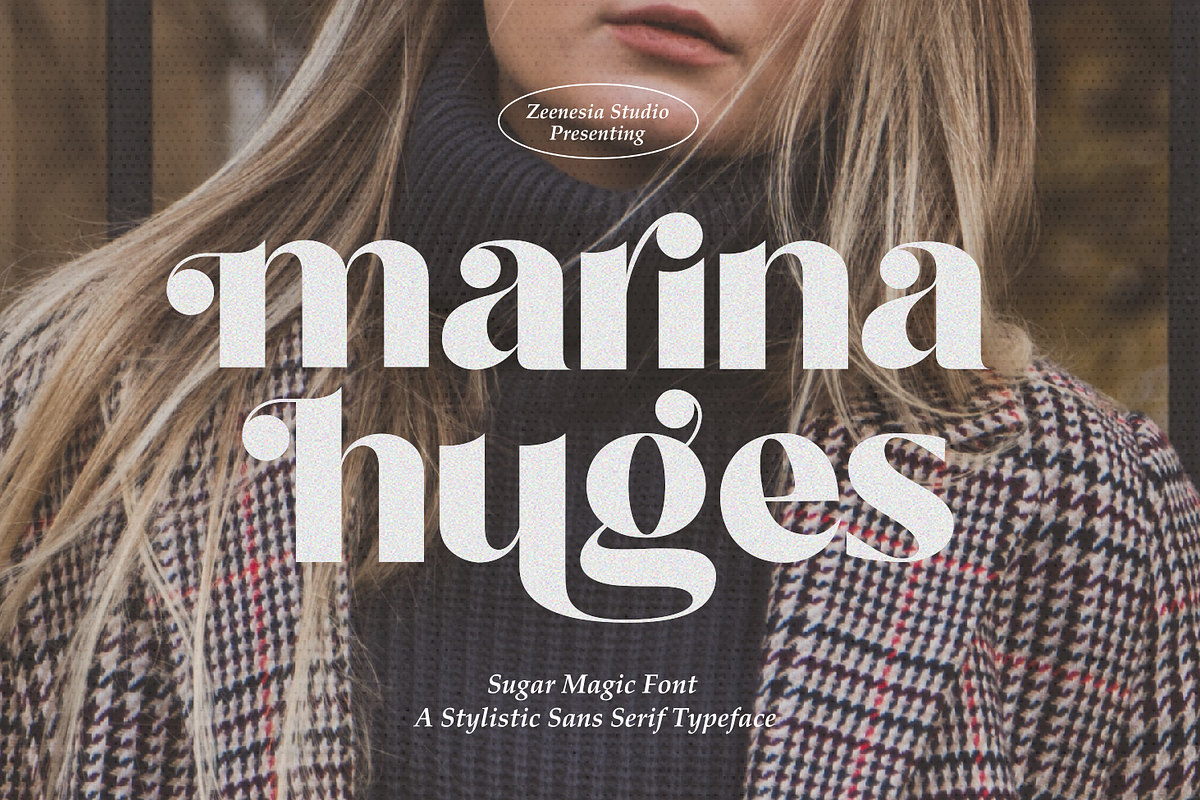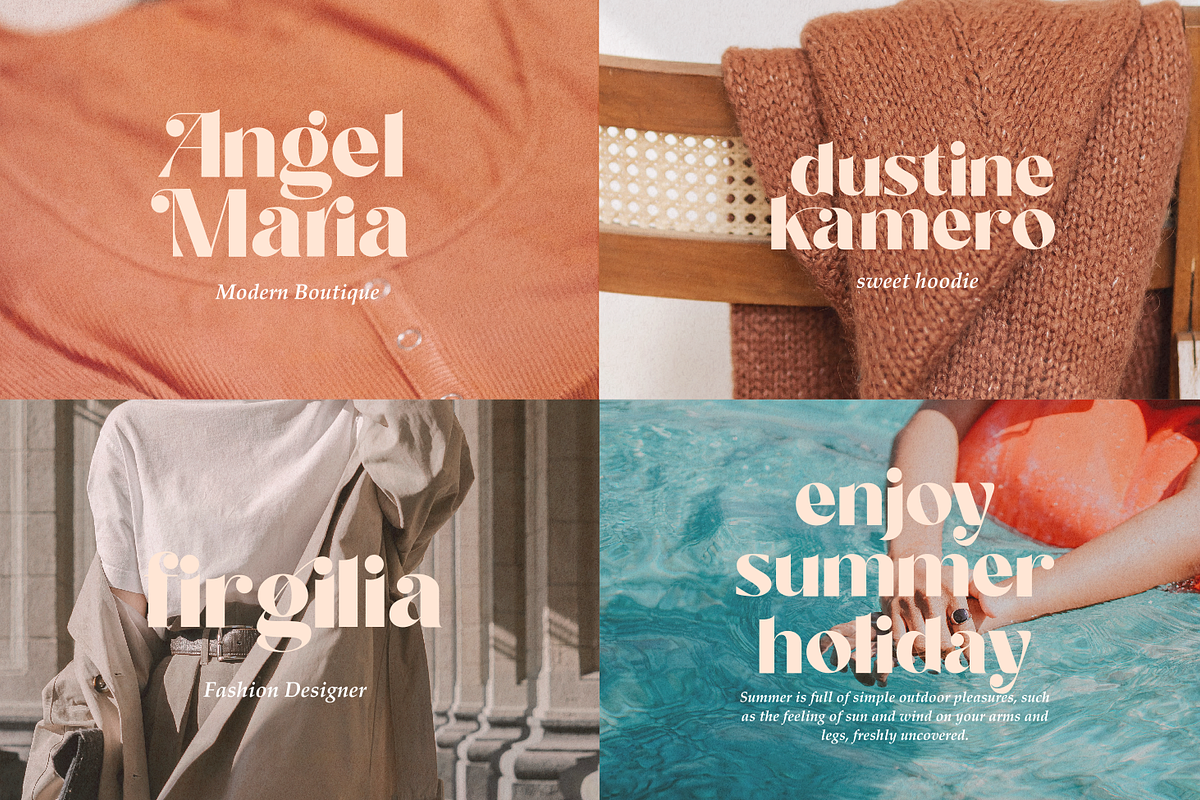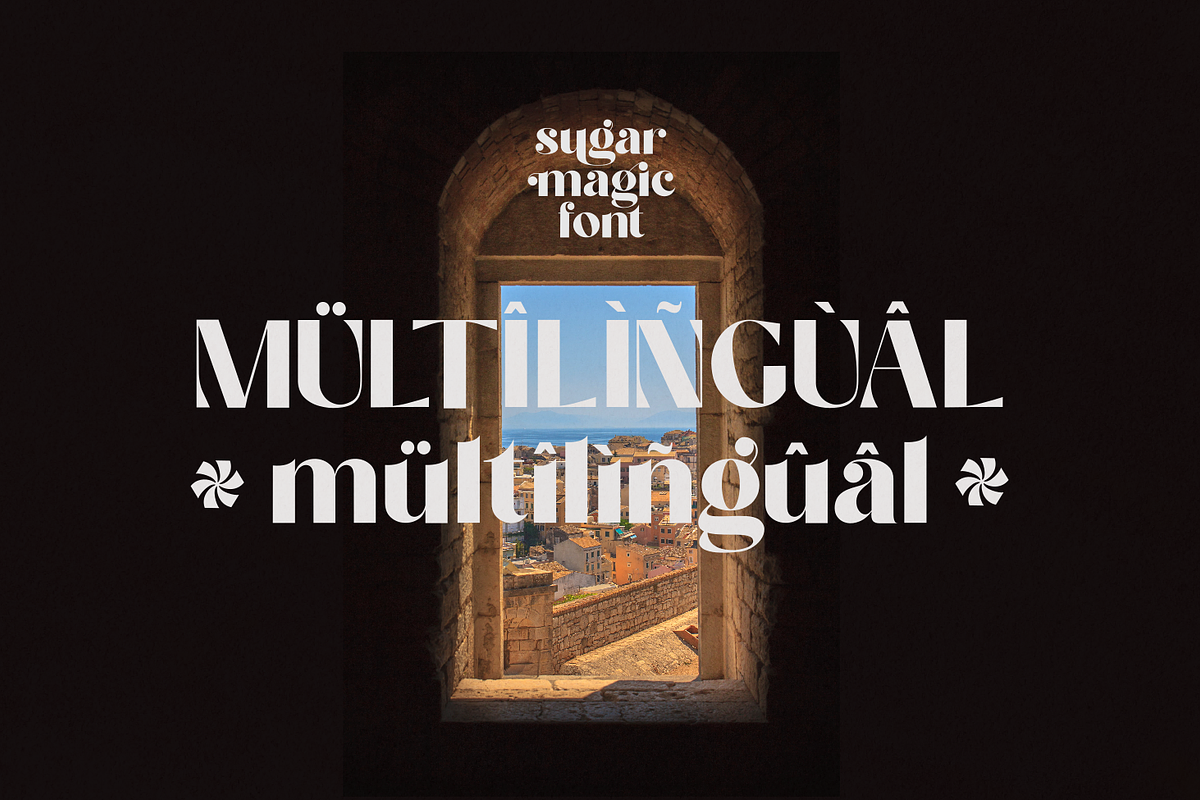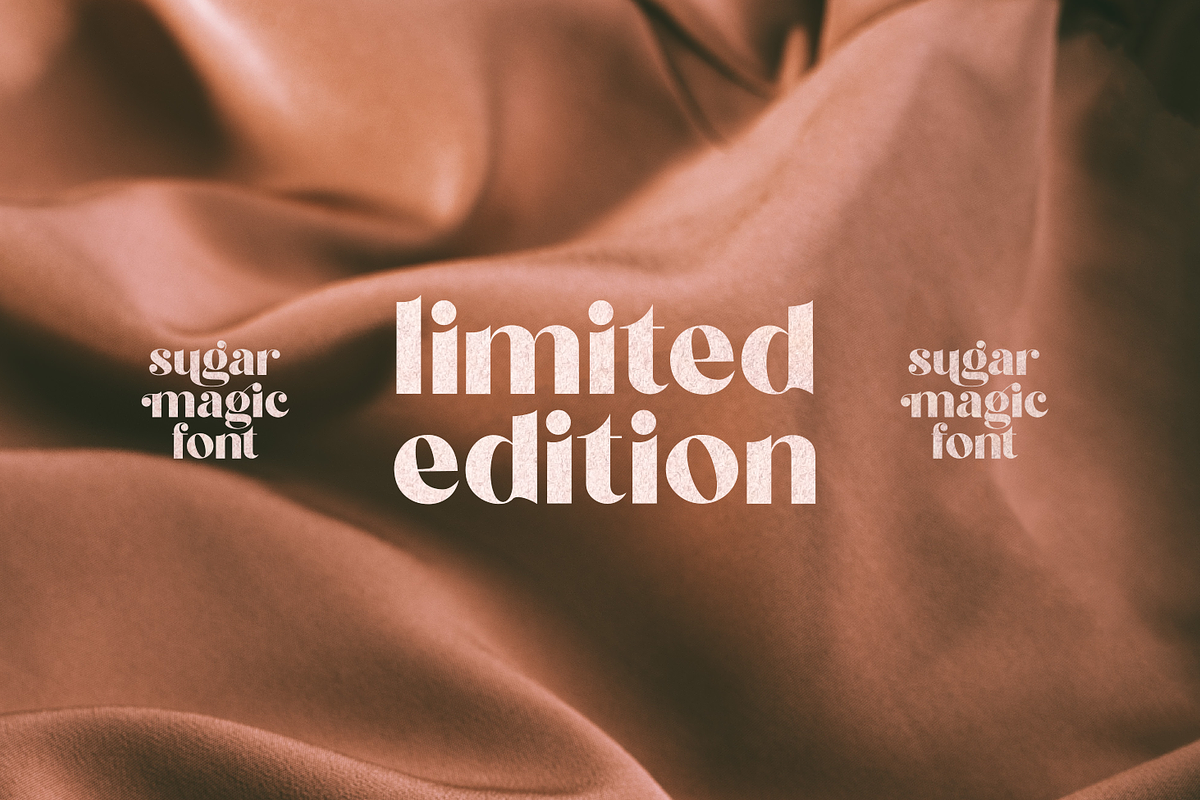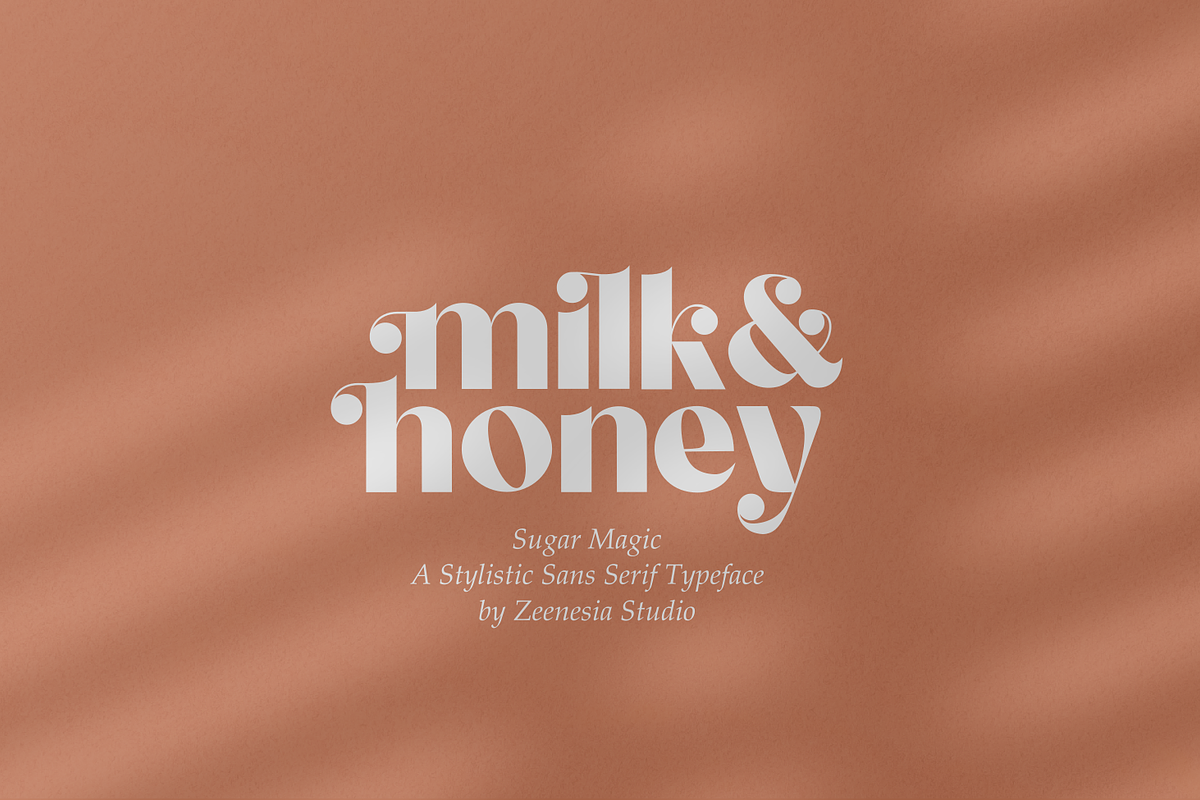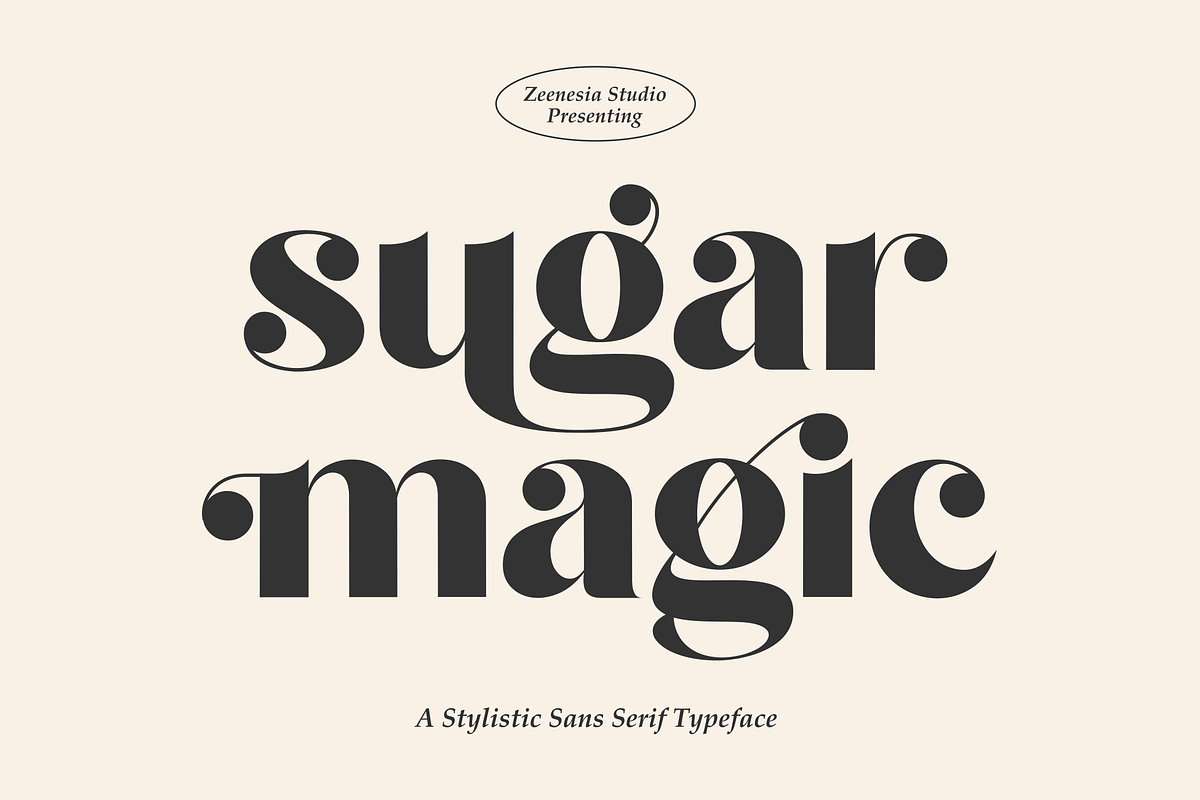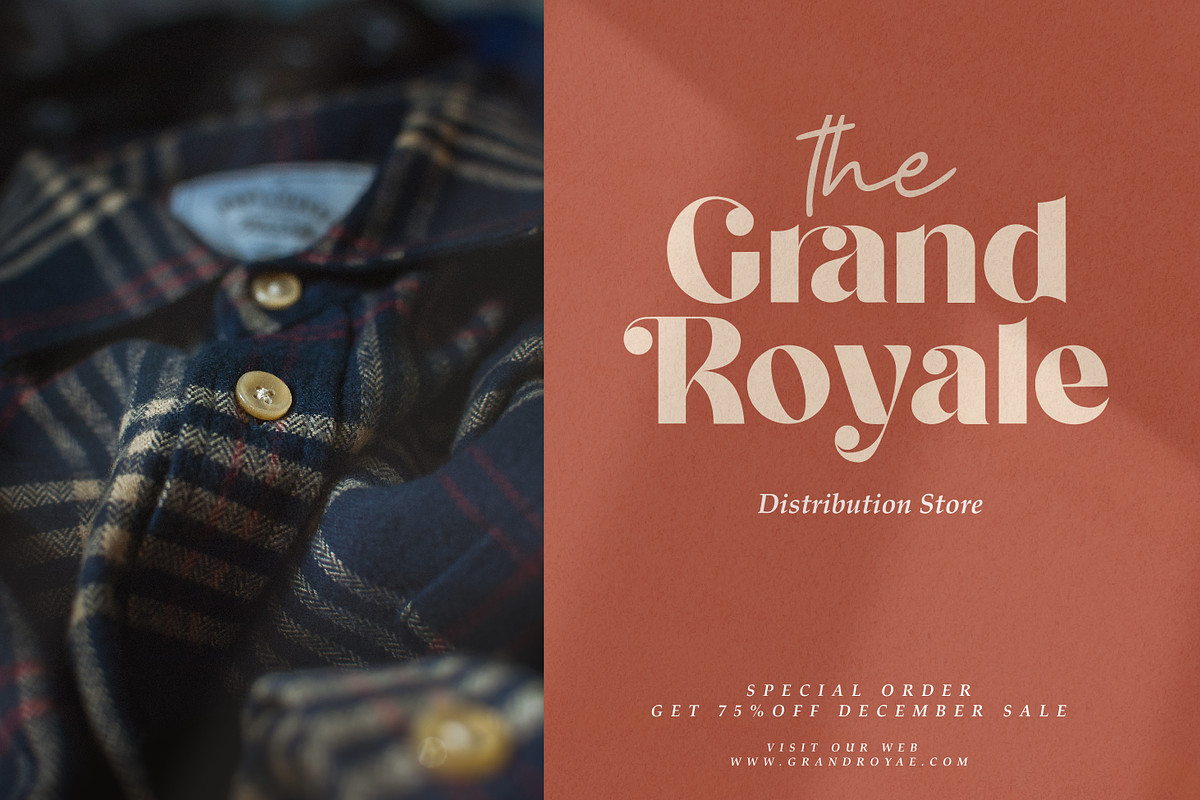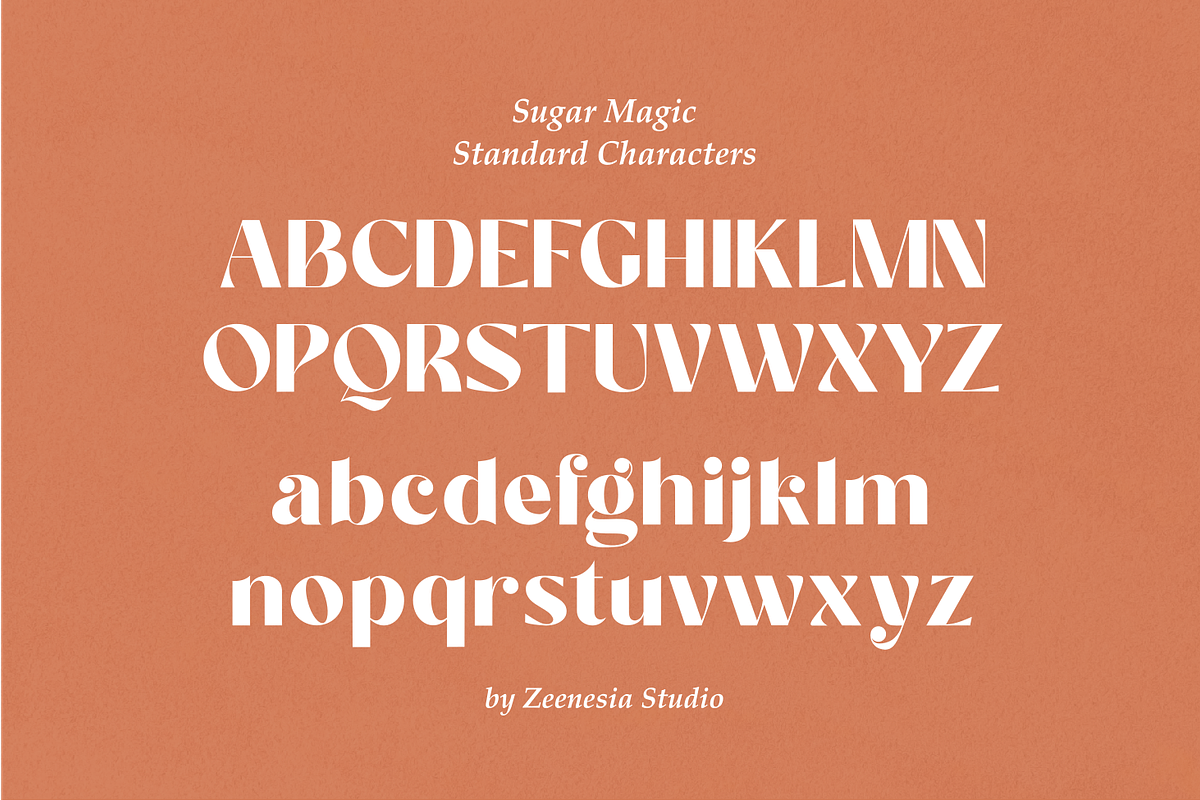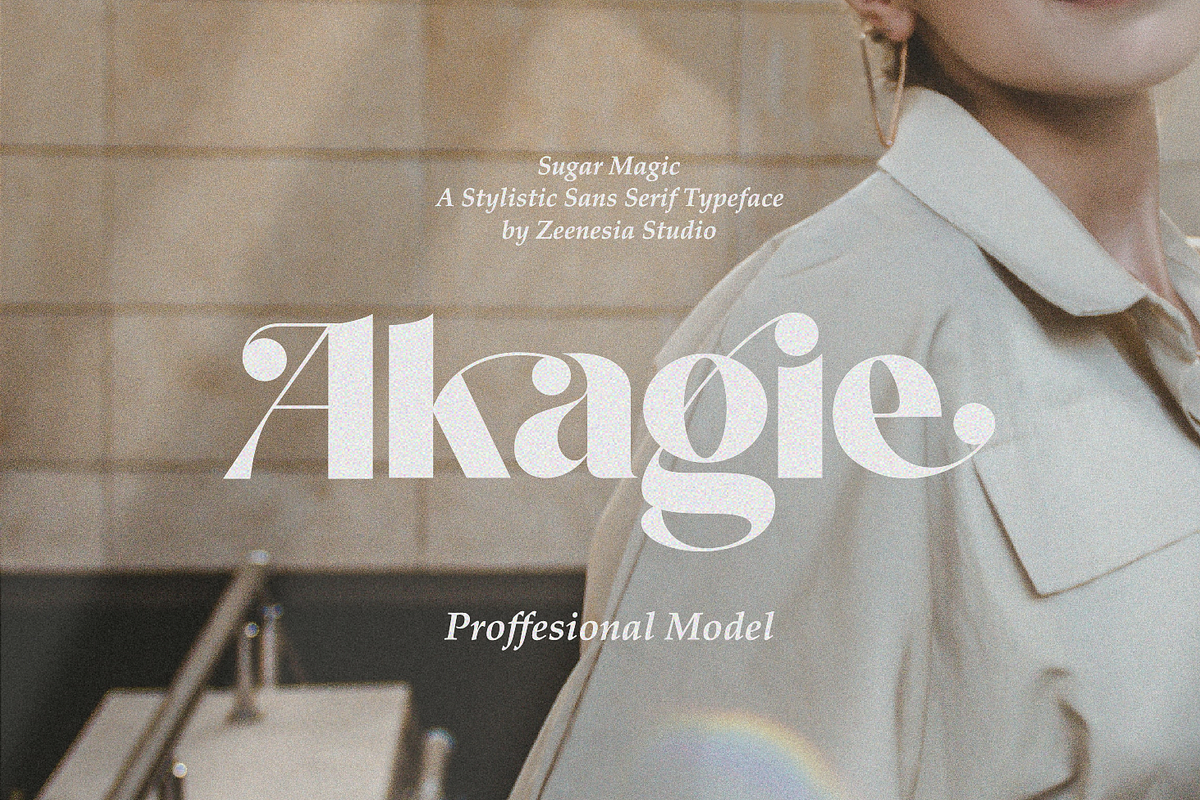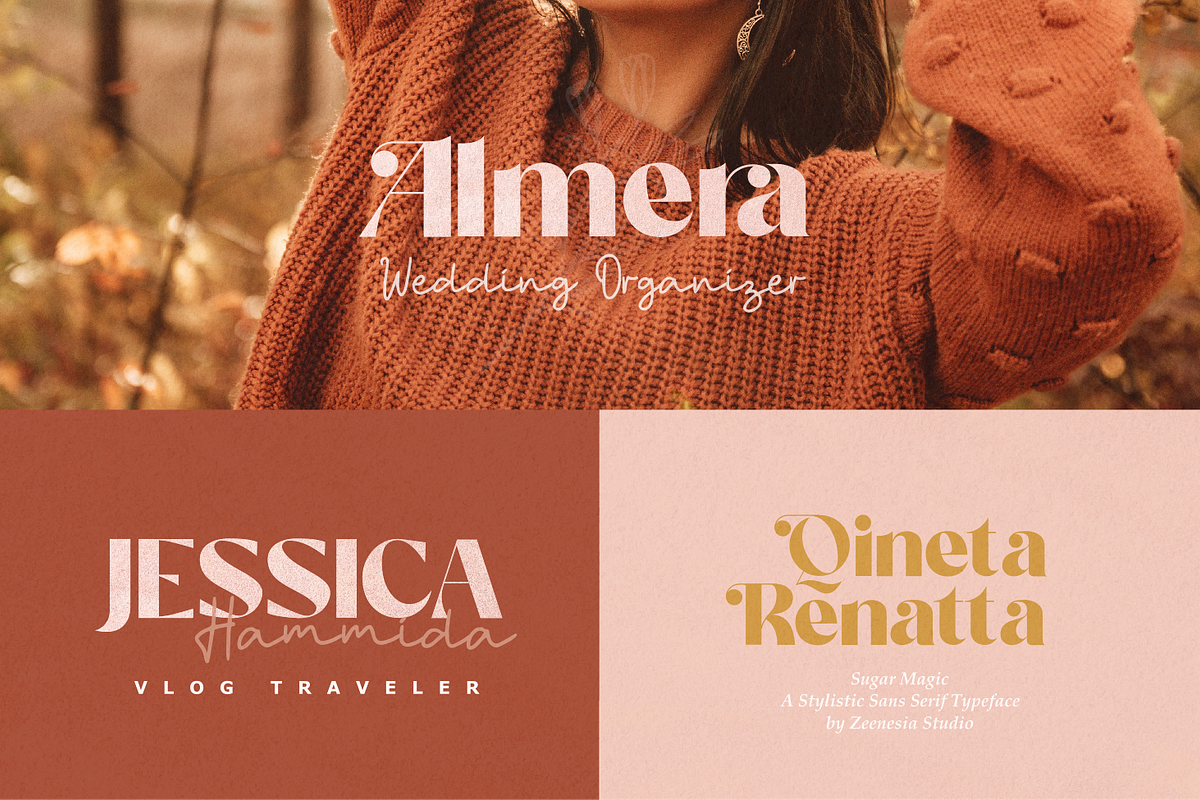
Sugar Magic
Introducing Sugar Magic
Sugar Magic is a modern and elegant sans serif font. Sugar Magic is well-suited for advertising, branding, logotypes, packaging, titles, headlines and editorial design. I created more much alternates variant and much natural ligatures to make this font very classy and look so beauty. Sugar Magic was built with openType features make your project wil be perfect.